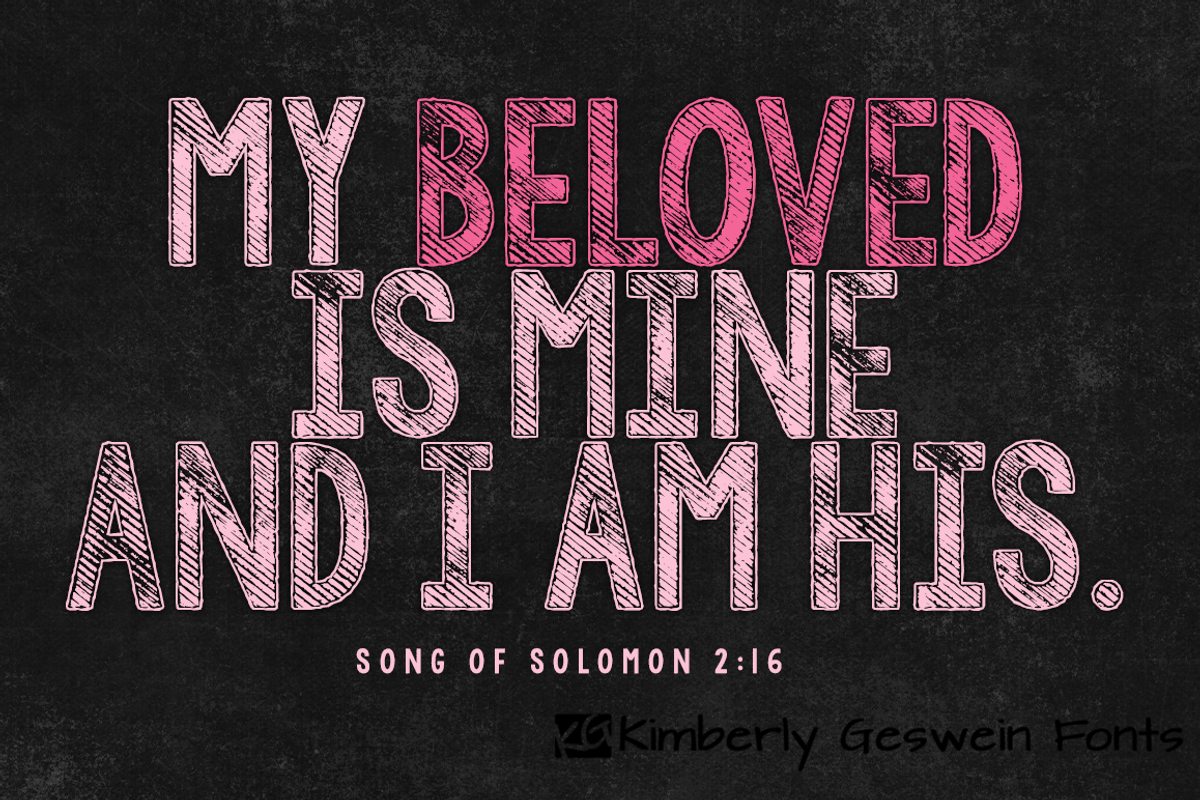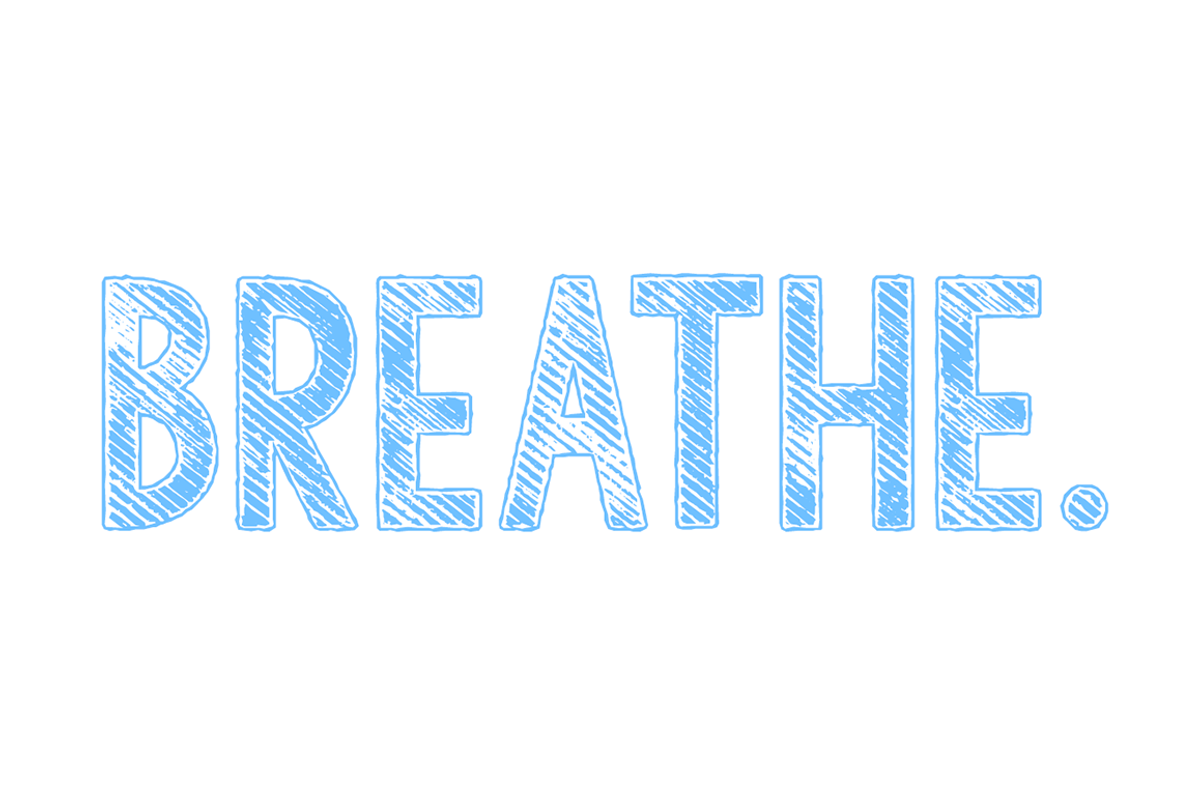
KG Tangled Up in You Font
KG Tangled Up in You Font by Kimberly Geswein Fonts is a font selected for branding, posters, packaging, typography.
- Also includes a solid version for layering.
- Uppercase and lowercase slots are each filled with uppercase letters, but they have different distressing patterns so they will create an or
Why KG Tangled Up in You Font is worth a look
KG Tangled Up in You Font by Kimberly Geswein Fonts fits naturally into Branding, posters, packaging, typography.